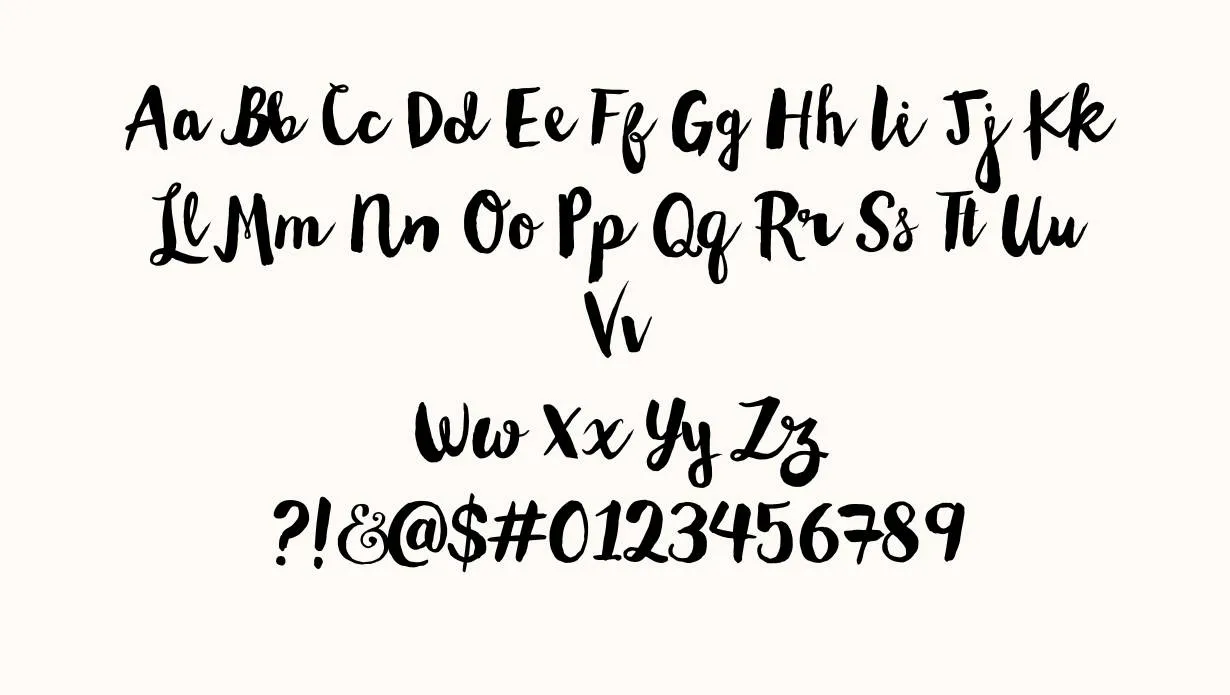
Embracing the spirit of exploration, the Wanderlust Letters font captures the essence of travel and adventure. Its playful and spirited style resonates with the wanderer’s heart, evoking a desire to explore new horizons.
Whether used in travel journals, destination-based marketing, or any project seeking to instill a sense of curiosity and discovery, this font conveys the thrill of new experiences and the joy of wandering into the unknown.
| Name | Wanderlust Letters Font |
| Designer | Cindy Kinash |